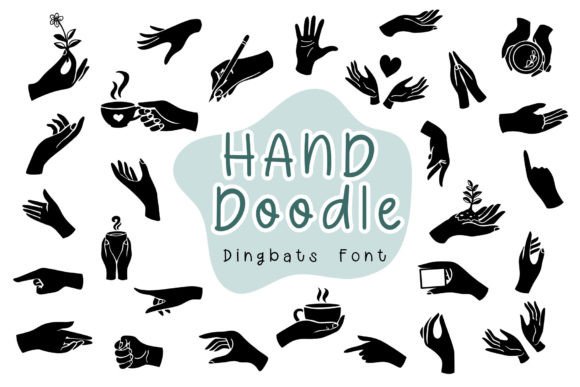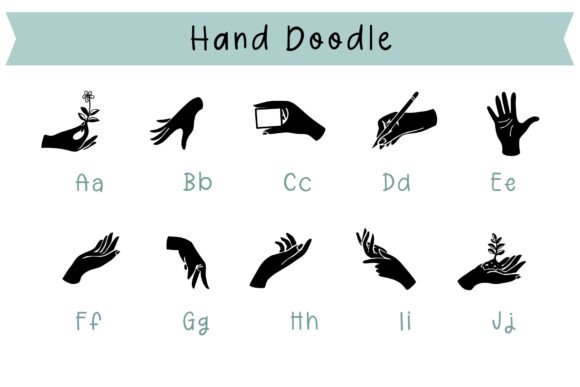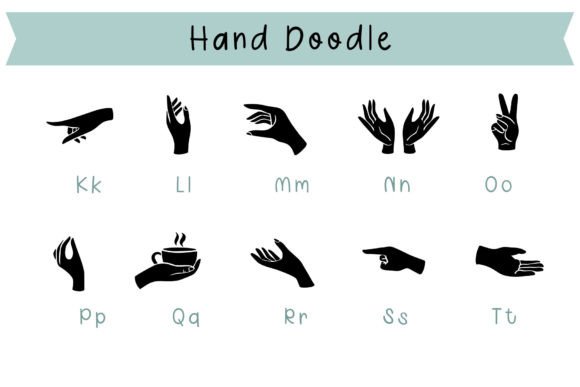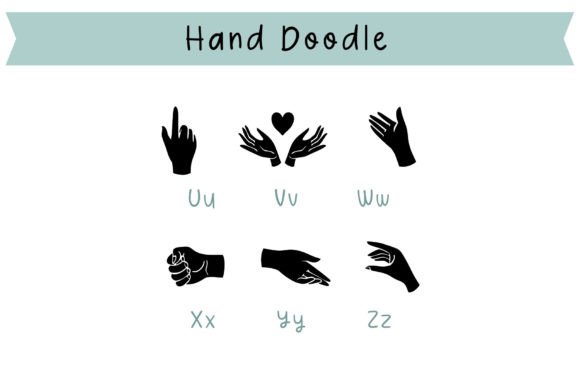
Hand Doodle Font
About the Hand Doodle Font
Unleash your creativity with Hand Doodle Font, a versatile font perfect for a wide range of applications. Hand Doodle is a fun font that shows hands doing all sorts of activities. It’s playful and perfect for designs that need a touch of creativity!
Hand Doodle excels in projects requiring a lighthearted and approachable feel. It’s ideal for children’s books, playful branding for artisan goods, or social media graphics where a friendly, hand-drawn aesthetic is desired. Avoid using it for large blocks of text or in UI contexts where legibility is paramount; its informal nature compromises readability in smaller sizes or extended use.
This font pairs well with clean sans-serif fonts like Open Sans for body copy, balancing its whimsical nature with a sense of order. For a more sophisticated pairing, consider a classic serif like Garamond to create a contrast between the hand-drawn informality and traditional elegance.
Hand Doodle’s core personality is undeniably playful and friendly, conveying a sense of approachability and creativity. Its informal style makes it unsuitable for projects requiring a formal or serious tone.
Hand Doodle Font Usage Examples
Hand Doodle Font Example